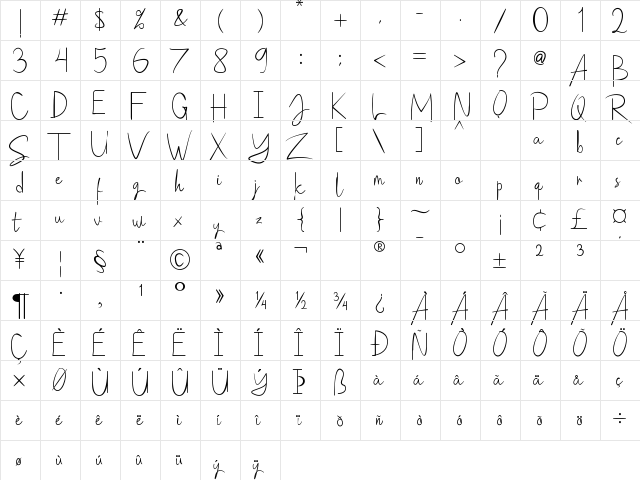
Saithik Handwritten Regular
| Foundry | Embun Studio |
| Designer | Aditya Rezki Apriyadi |
Design Context for Saithik Handwritten Typeface
Saithik Handwritten flows with the natural rhythm of handwritten lettering, making it ideal for designs that call for warmth and personal expression.
Font Pairing: Combine Saithik Handwritten with a simple geometric sans for maximum contrast — the tension between flowing curves and clean structure is a classic typographic pairing.
Pro Tip: Use Saithik Handwritten for short runs of text — names, titles, or taglines. Extended body copy in script faces tires the eye quickly.